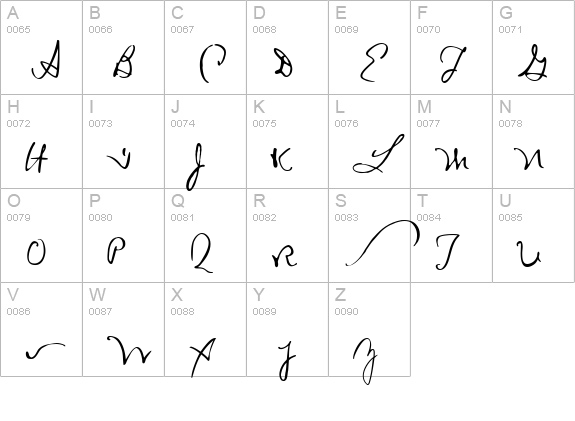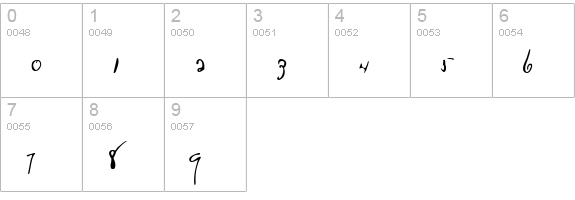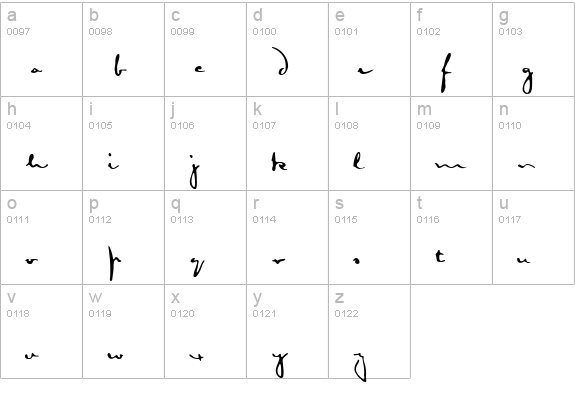
Autograph Lanier HPLHS is a stylish and elegant font that exudes sophistication and charm. With its delicate curves and clean lines, this font is perfect for adding a touch of class to your design projects. Whether you're working on invitations, logos, or branding materials, Autograph Lanier HPLHS will elevate your work to the next level. The best part? Autograph Lanier HPLHS is available for free download at FontsMarket.com. That's right, you can enjoy the beauty and versatility of this stunning font without spending a dime. So why wait? Download Autograph Lanier HPLHS today and see the difference it can make in your designs.